Polish Bibles
Sirba’s warmth comes to light in a series of Polish editions of the Bible designed by Muflon studio.
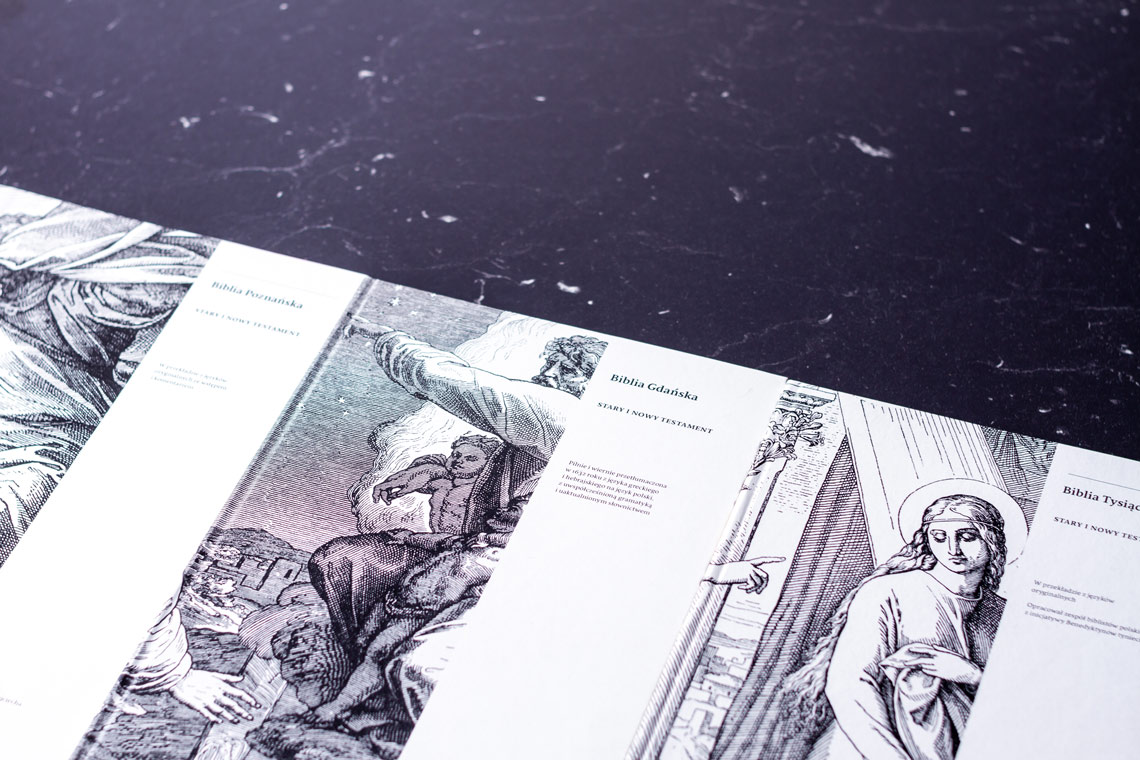
Sacred texts such as the Bible sometimes need a modern update in terms of presentation. With a resurgence of value placed on the aesthetic and mechanical virtues of design, the Holy Bible is often the focus of typesetting ventures.
Nicolien van der Keur’s Sirba has been used throughout this series of Polish Bible translations designed by Muflon Studio. Sirba has been skillfully used in the sacred works to make complex texts warm: translations, introductions, comments, footnotes, call-outs, and the like.
The four translations chosen for publication are the Biblia Tysiąclecia (AKA Millenium Bible), the Biblia Poznańska, the Biblia Gdańska, and the Biblia Paulistów.